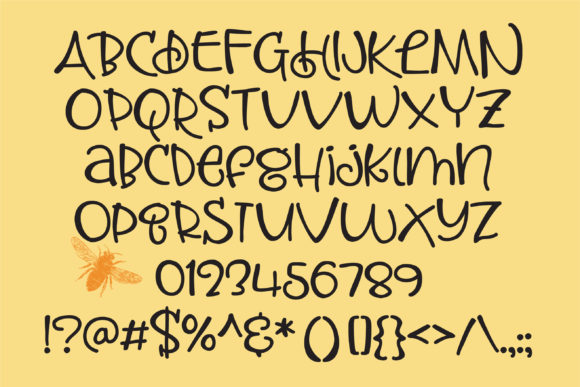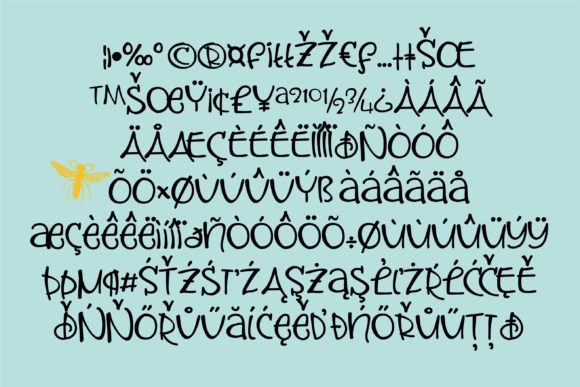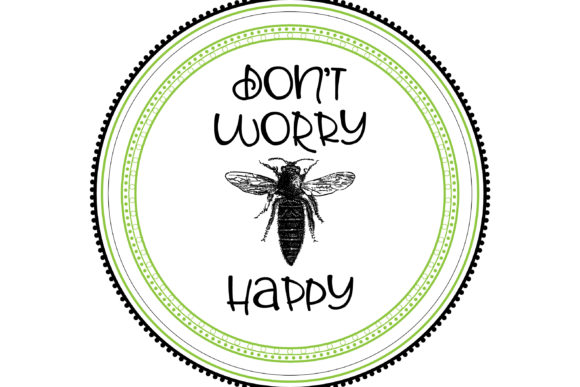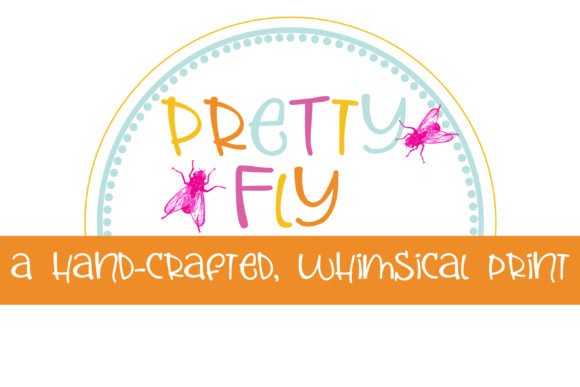
Introduction to Pretty Fly Font
This hand-written font has two cases you can mix up as you type for creative looks.
Key Features of Pretty Fly Font
Why Choose Pretty Fly Font?